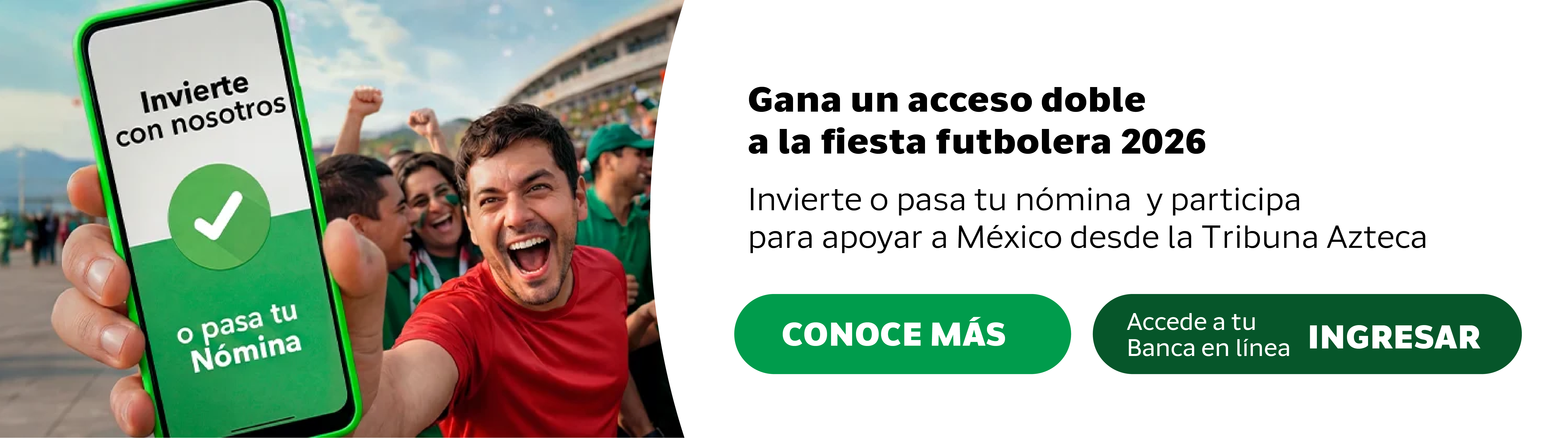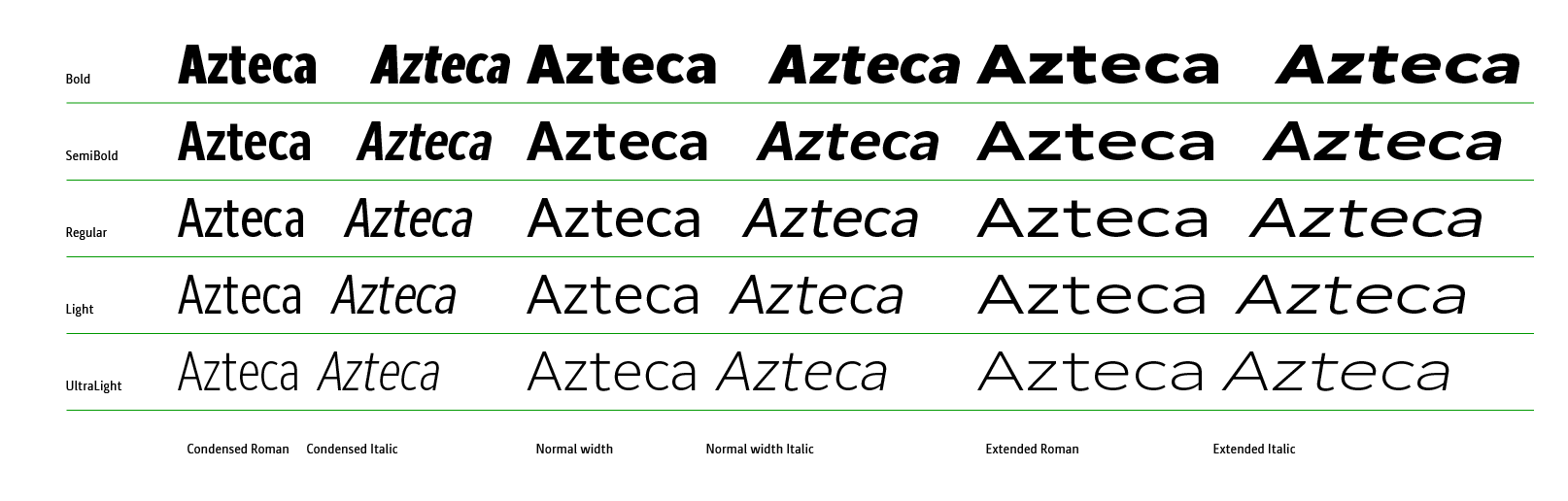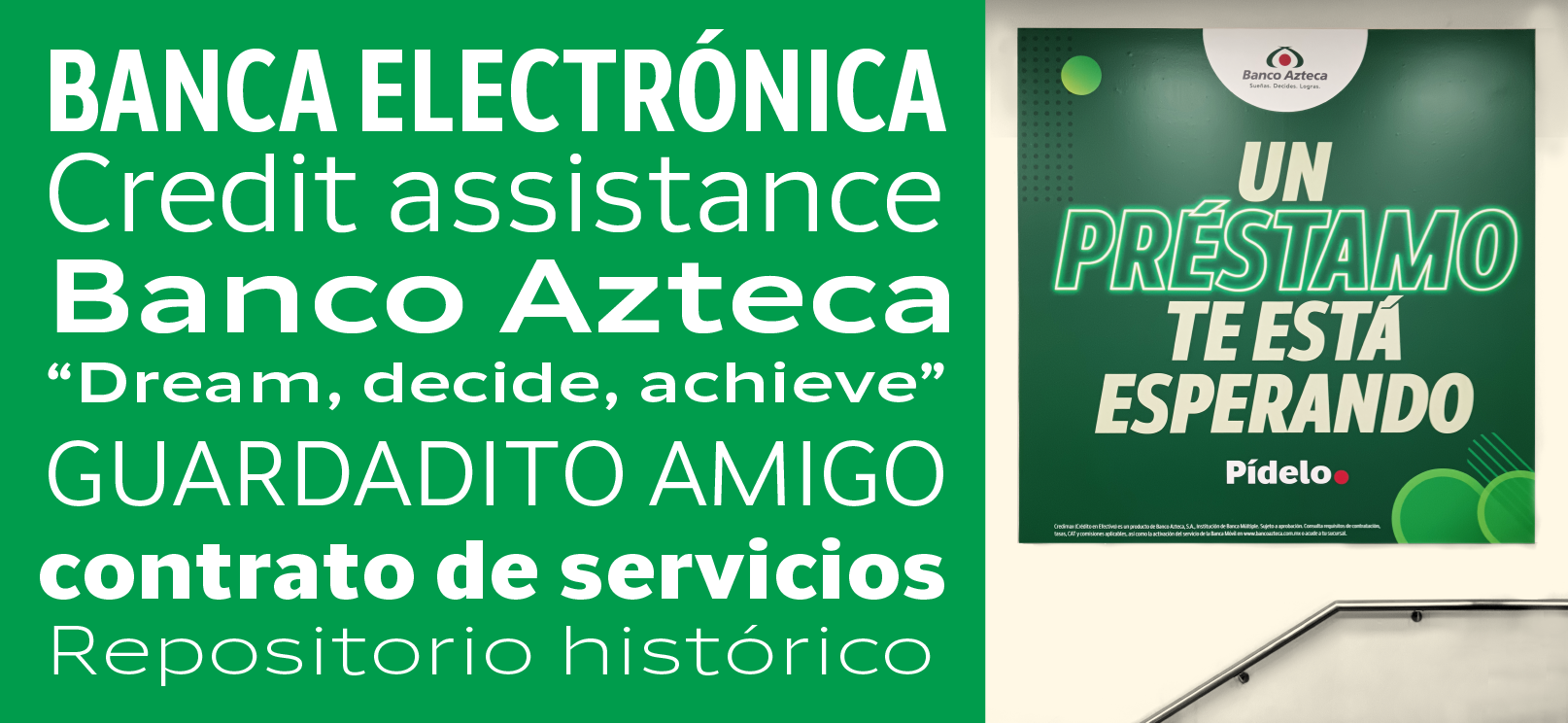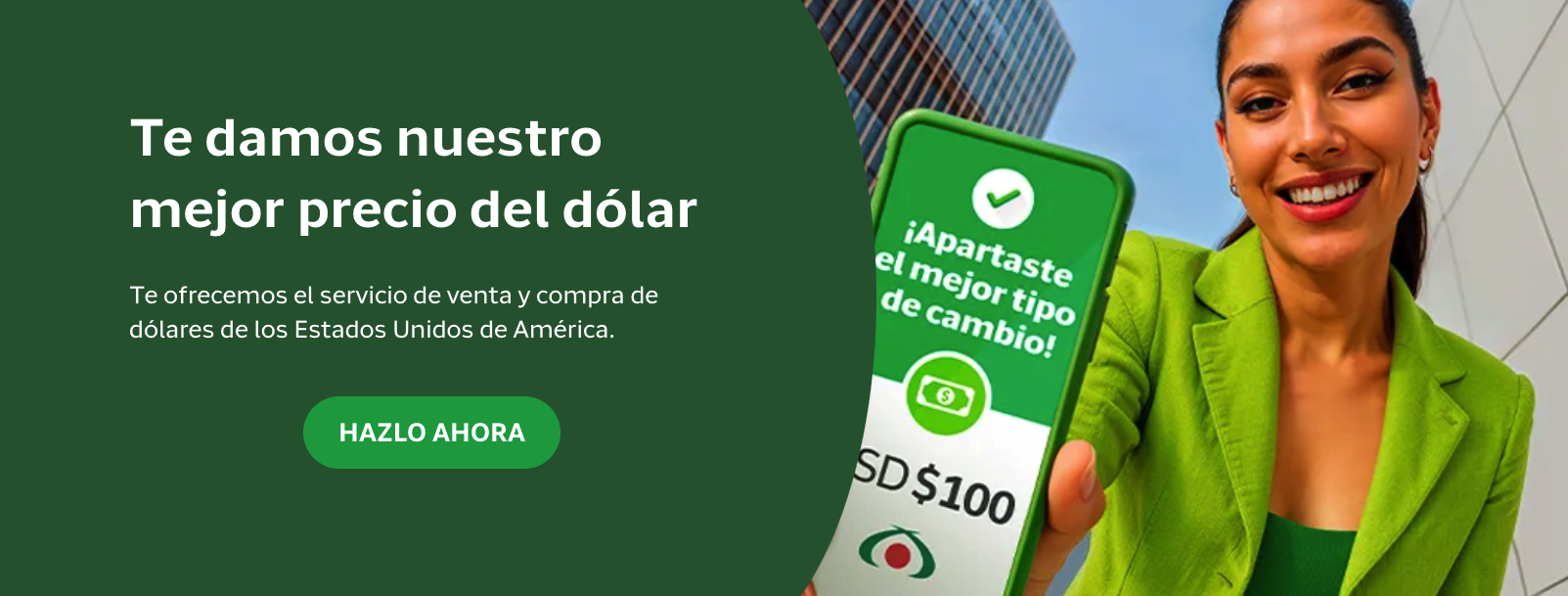
Azteca Sans
Azteca Sans was designed specially for Banco Azteca, it was a custom font with a wide range of styles and weights for the largest bank in Mexico and Latin America.
Banco azteca font in use, image from bancoazteca.com
Image from bancoazteca.com
The project
This custom font was created to work across all the communication of Banco Azteca, the request was to have a versatile font family for use in print media and on mobile devices. The brief was to have a sans serif in multiple weights and styles, useful for the website, app and printed material.
We started developing the ideation for the Uprights, exploring different options from neutral to more expressive proposals.
Once the Normal width styles were developed, the font family was expanded to Condensed and Extended styles, this allowed the use of the typefaces in multiple scenarios, from text typeset to save space in narrow formats to headings for posters with more available space.
From condensed to extended, Azteca font family has a wide range of options for typesetting.
Ultimately, the project resulted in a cohesive and scalable typographic system designed to ensure consistency, clarity, and adaptability across every touchpoint of the brand.
Azteca in use at Banco Azteca branch